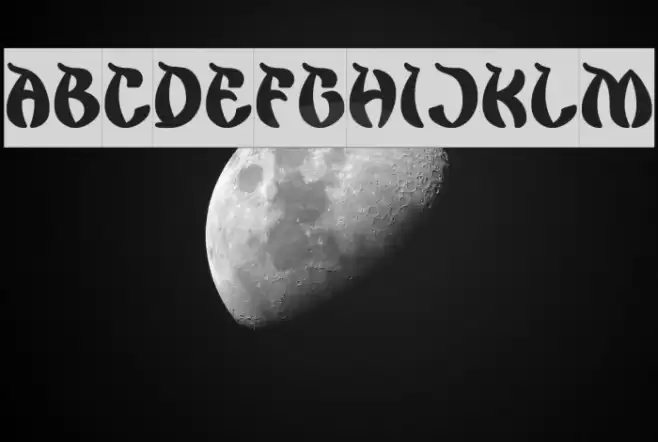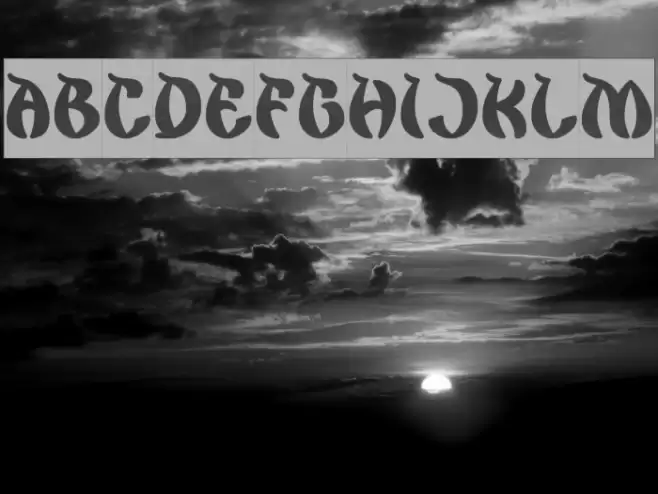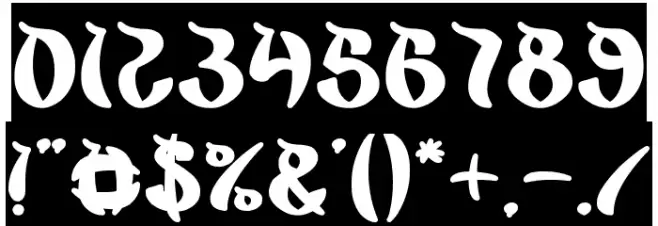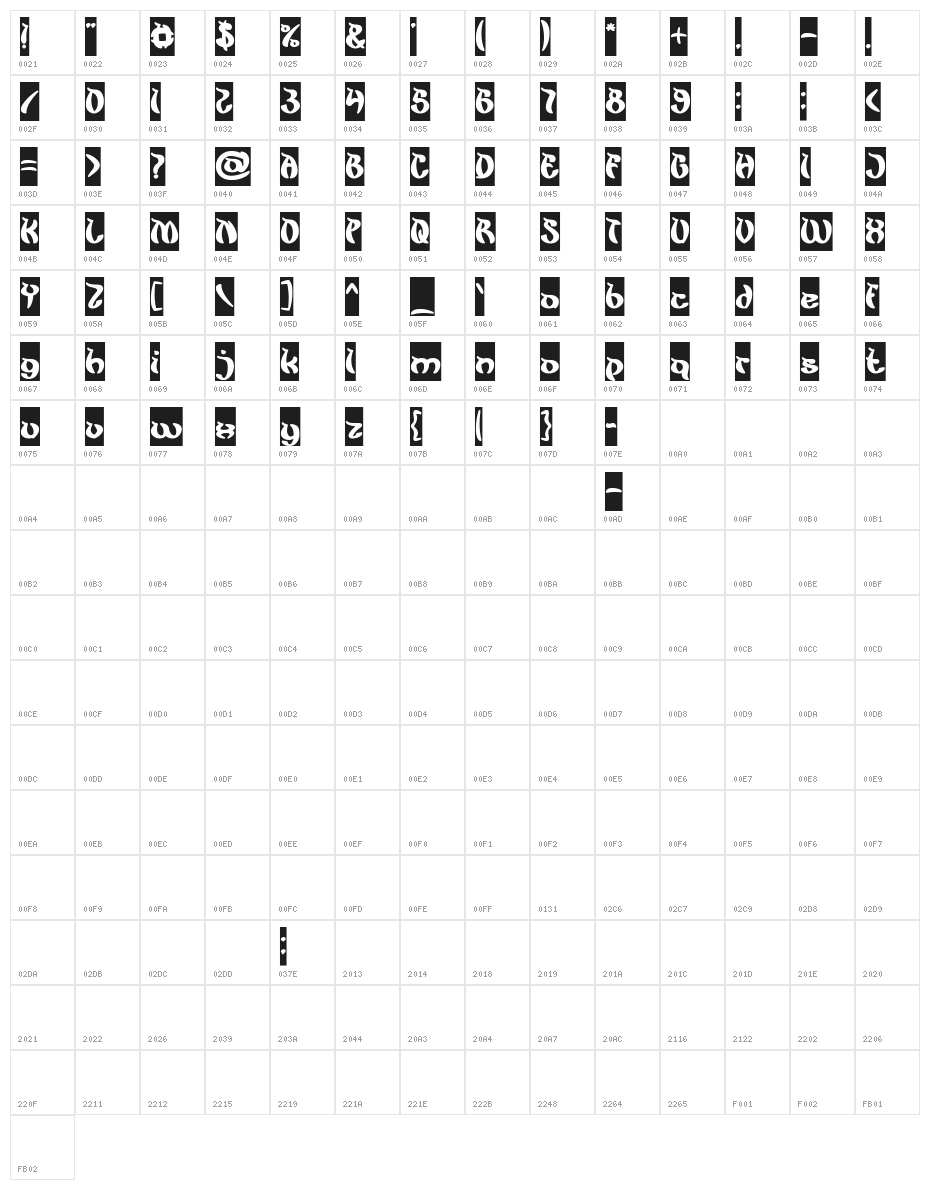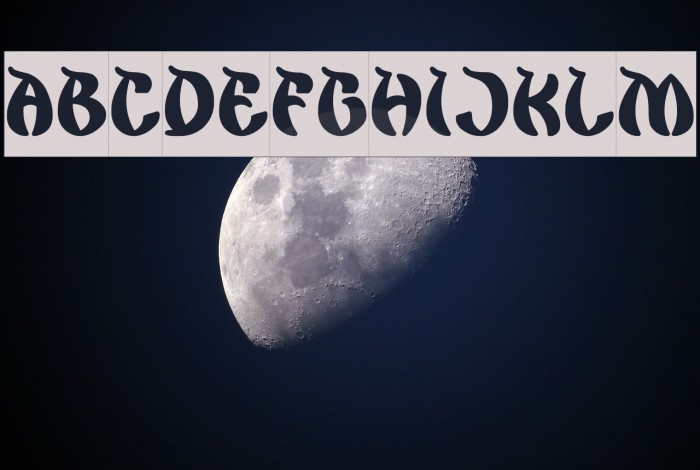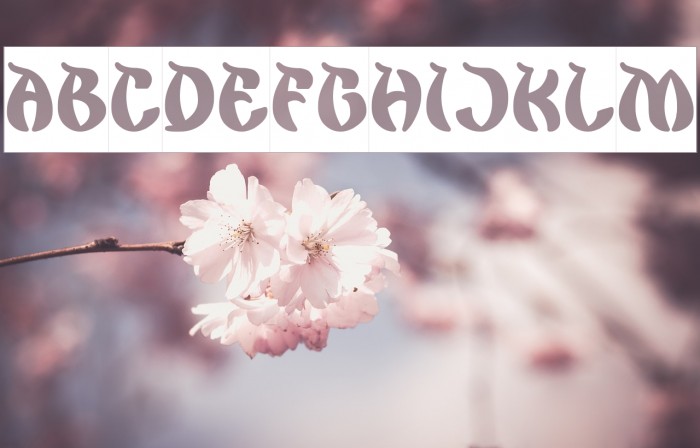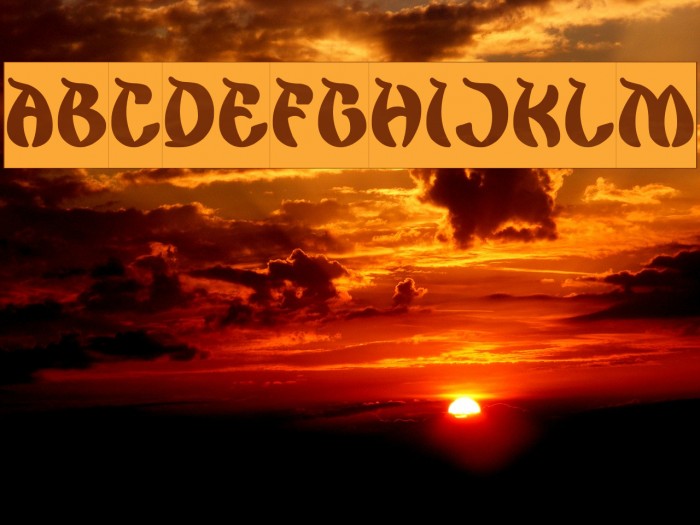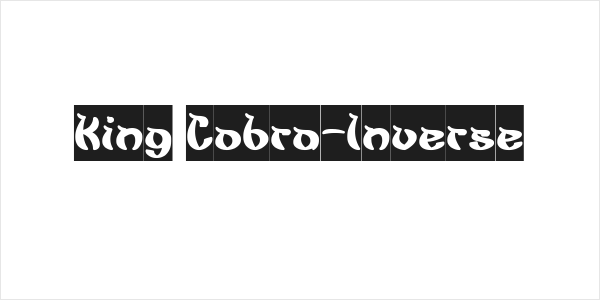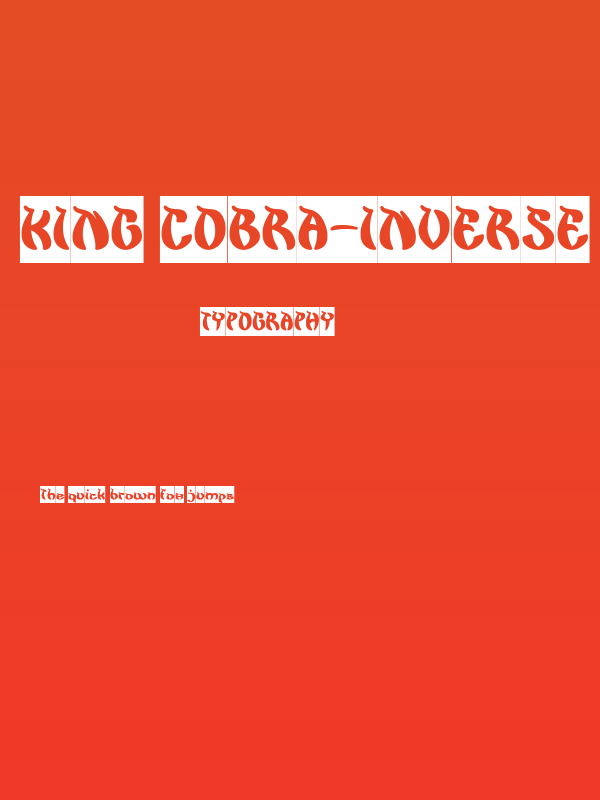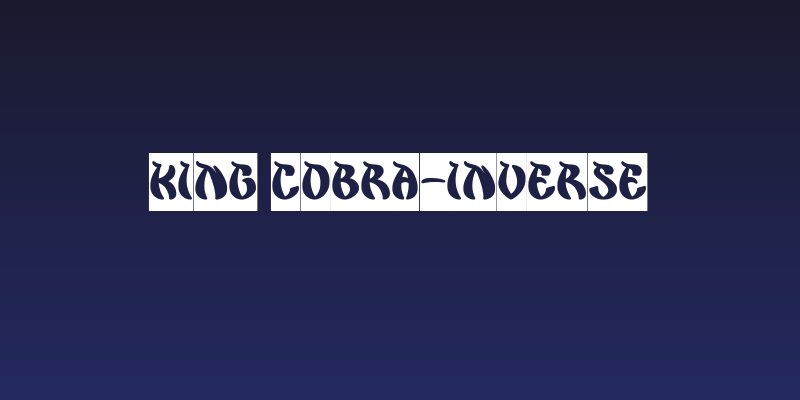
King Cobra-Inverse Font
King Cobra-Inverse Description
This font features a bold and dynamic style with a unique, serpentine flair. The characters are designed with a high contrast between thick and thin strokes, giving them a dramatic and eye-catching appearance. The uppercase letters are particularly striking, with exaggerated curves and sharp edges that evoke a sense of movement and energy. The lowercase letters maintain this dynamic style, offering a cohesive look across the typeface. Numbers and special characters are equally bold, ensuring consistency throughout. This font's distinctive style makes it ideal for projects that require a strong visual impact.
A bold, high-contrast font with a dynamic, serpentine style from Uncategorized fonts.
- Proposed Projects: Ideal for branding, posters, and headlines that require a strong visual impact.